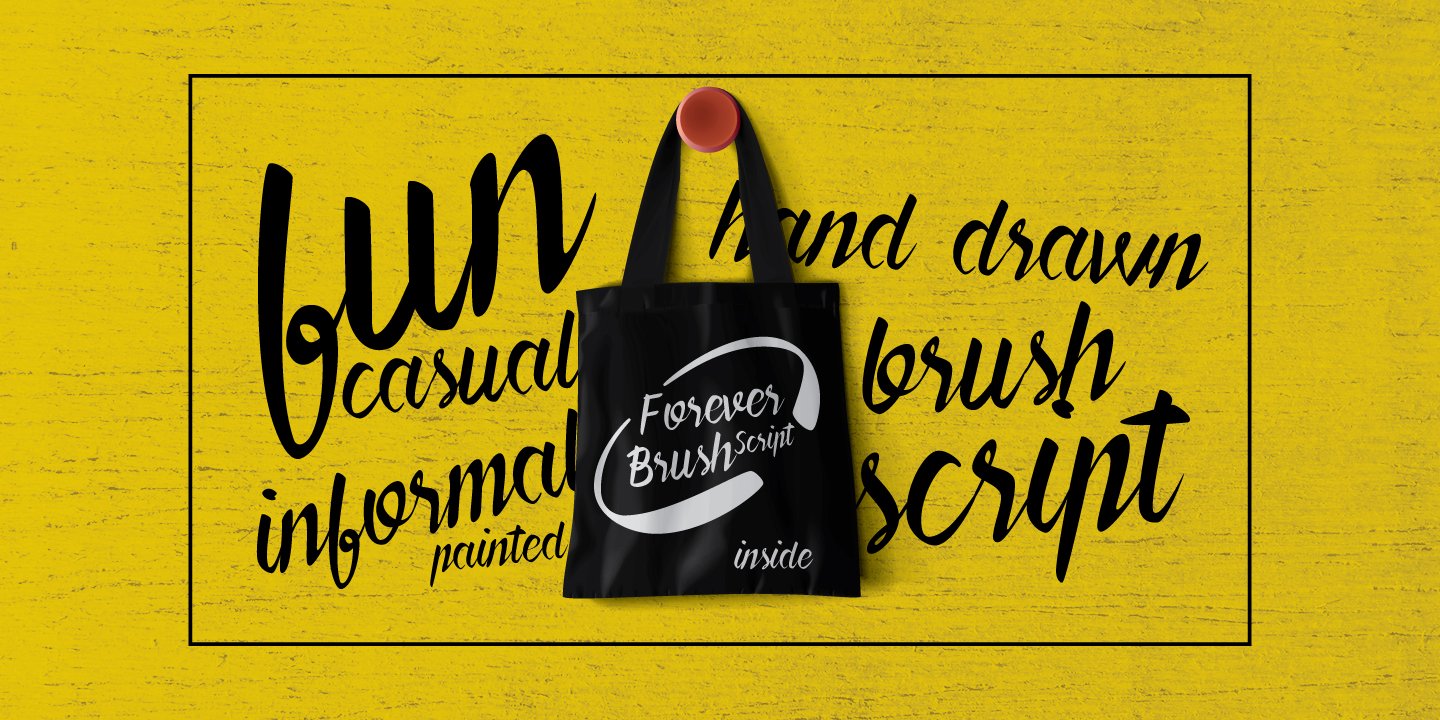
Forever Brush Script
Forever Brush Script is a handwritten brush script by Pedro Teixeira Foundry, originally released in 2016. Its connected, informal character gives names and short phrases a personal and celebratory tone suited to invitations, cards, banners, party graphics, music artwork and expressive display typography. The live tester is especially useful for checking how capitals, repeated letters and longer words flow together.